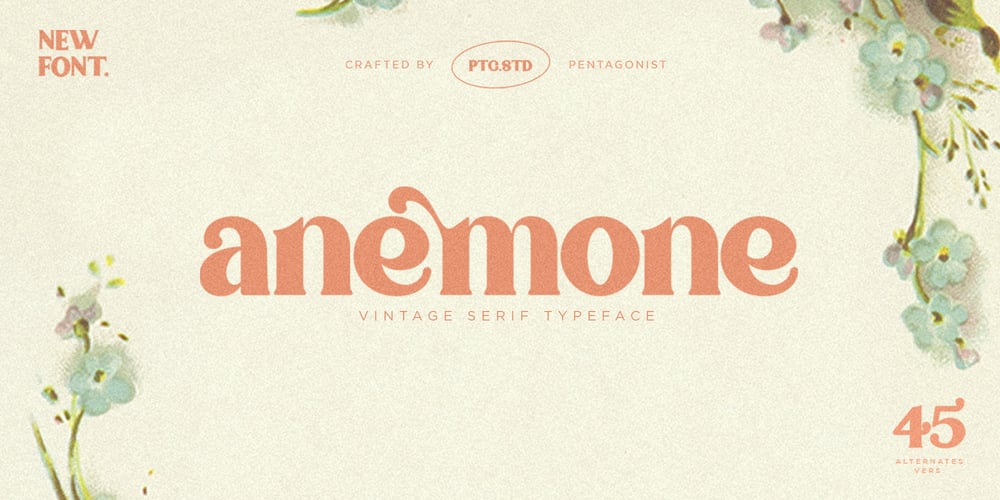
Anemone Font Family was designed by Burhan Adiatma and published by pentagonistudio. Anemone contains 1 styles and family package options. Anemone Is A Vintage Serif Character Inspired By Stylish and Vintage Style.SOFTWARE REQUIREMENTS :Fonts and alternate : No special software required they may be used in any basic program /website apps that allows standard fonts That’s it folks! You can go ahead and get cracking :)Follow My Shop For Upcoming Updates Including Additional Glyphs And Language Support. And Please Message Me If You Want Your Language Included or If There Are Any Features or Glyph Requests, Feel Free to Send me A Message. Have a Good Day !